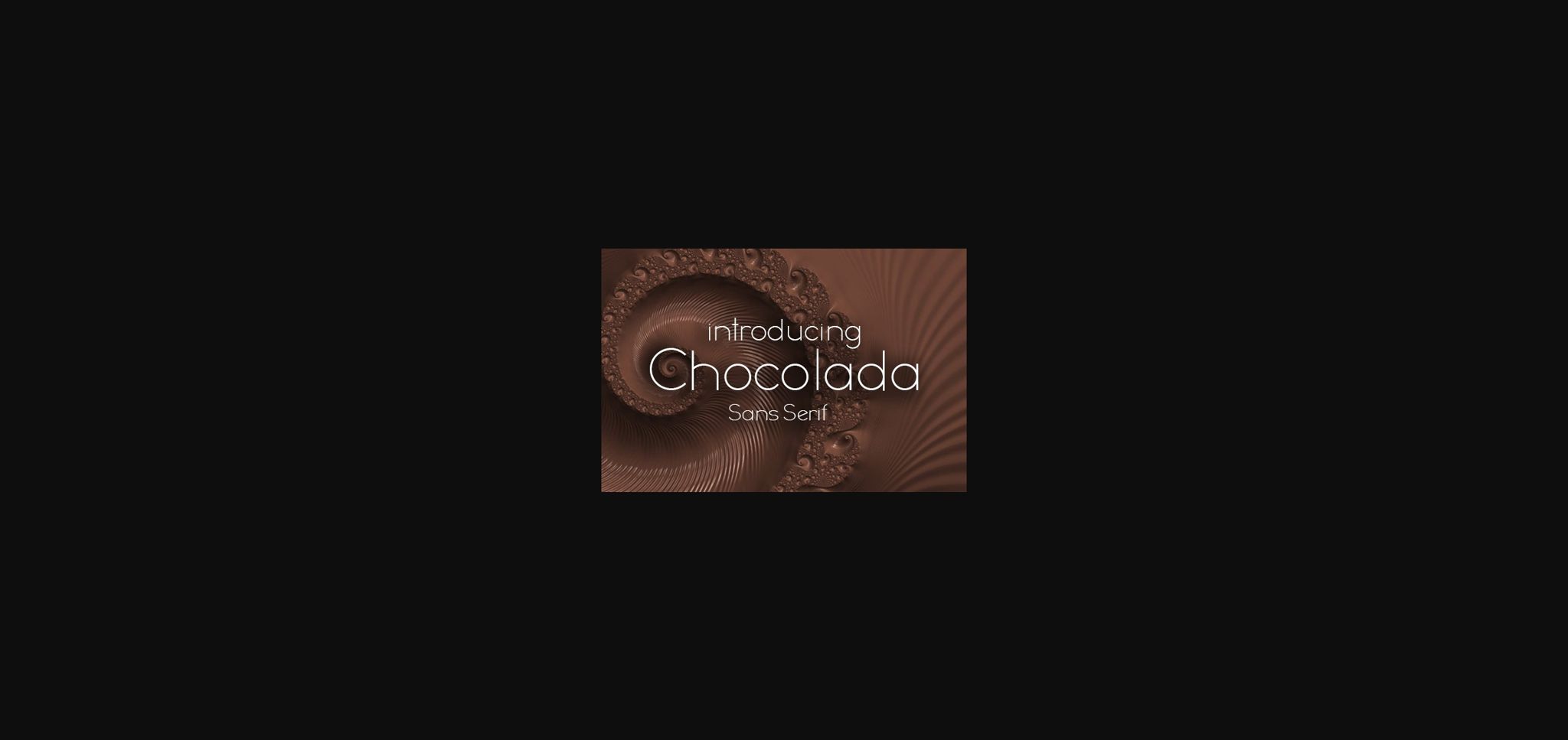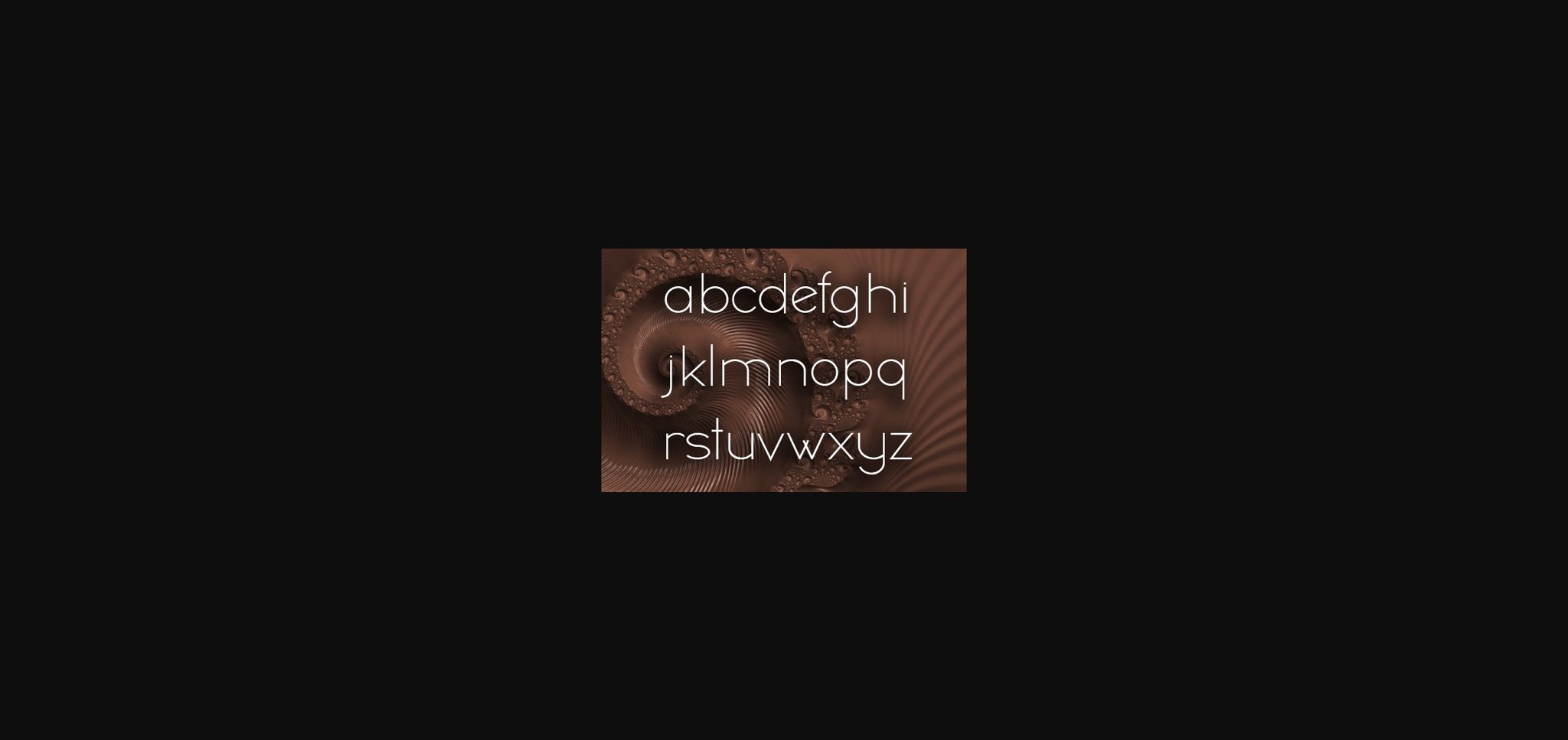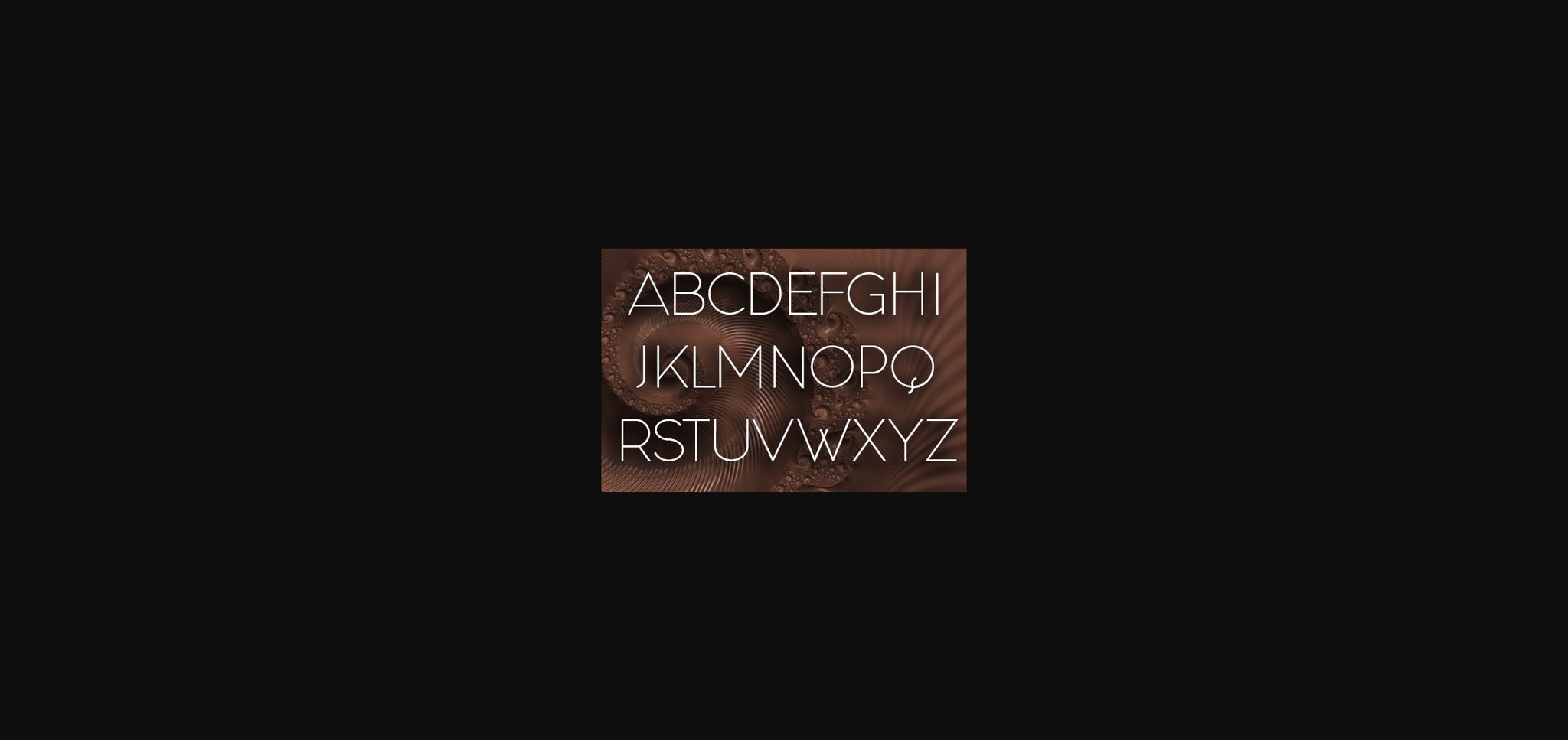
About Chocolada Font
Chocolada is a stylish Sans Serif font that will make your designs look perfect.
Use this font on banners, headlines, and posters.